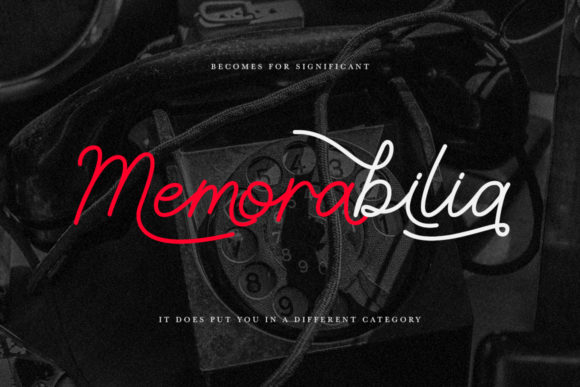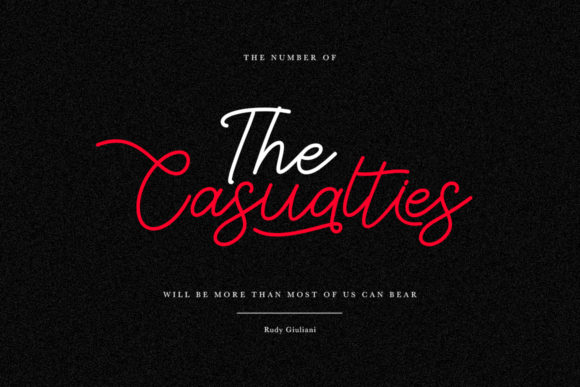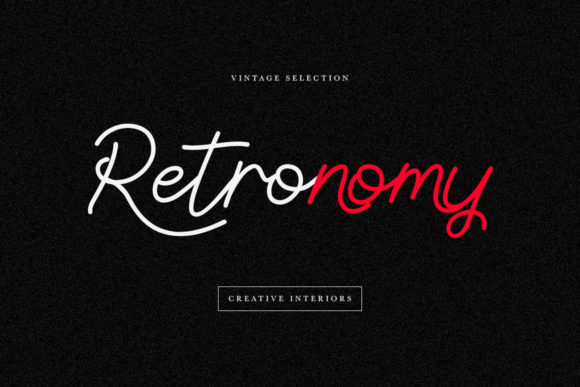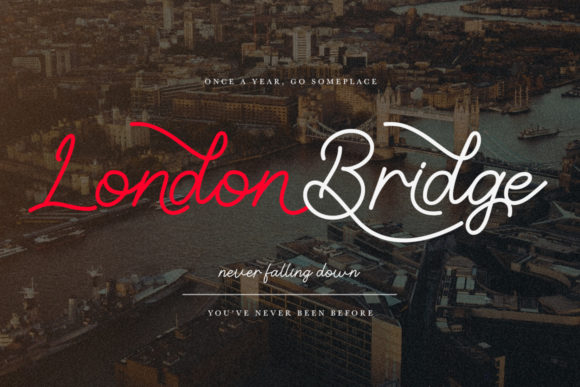
About Casablanka Font
Casablanka is a unique handwritten font. Fall in love with its incredibly versatile style and use it to create spectacular designs!